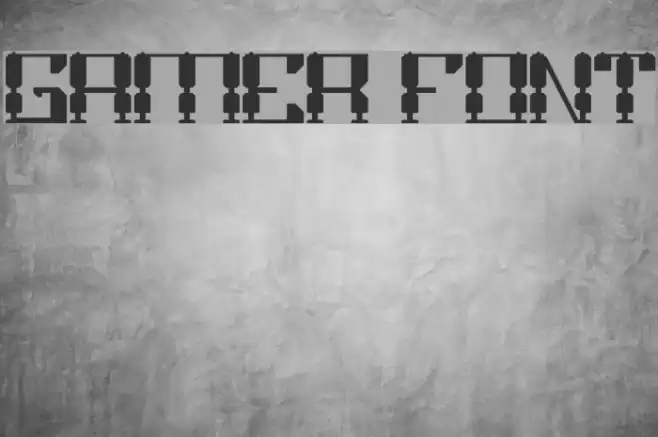
GAMER Font
GAMER Description
This font features a unique, pixelated style with a futuristic and digital aesthetic. The characters are constructed with a blocky, geometric design, reminiscent of classic arcade games. Each letter is composed of small, square-like elements that create a cohesive and structured appearance. The font has a consistent weight throughout, with no variation in stroke thickness, giving it a uniform and balanced look. The spacing between characters is tight, enhancing the compact and dense feel of the text. This style is particularly suited for digital and gaming contexts, where a retro or tech-inspired look is desired.
A pixelated, geometric font with a digital, arcade-inspired style from Uncategorized fonts.
- Proposed Projects: Ideal for video game titles, tech-themed posters, digital art projects, and retro-style branding.
- Character Spacing: Tight